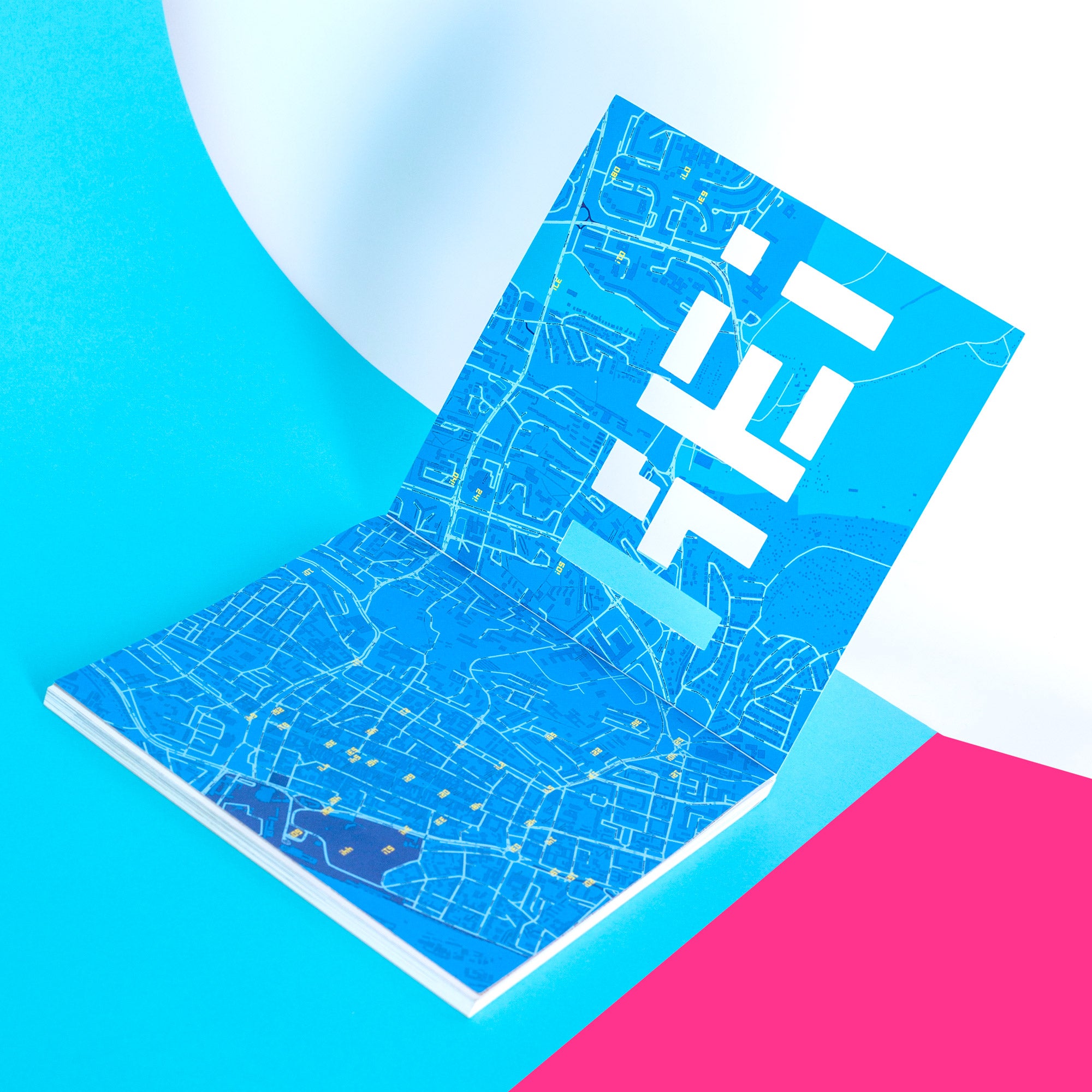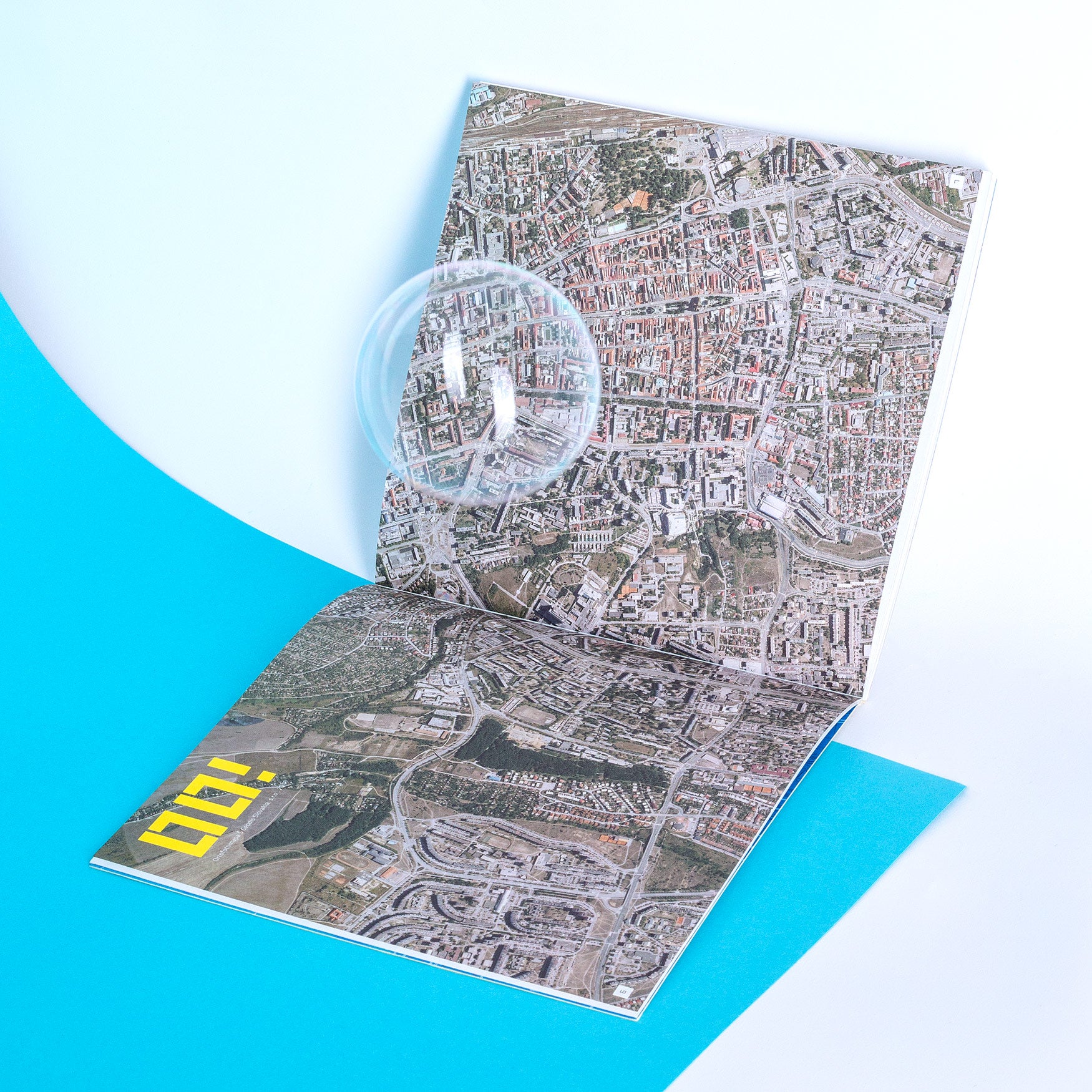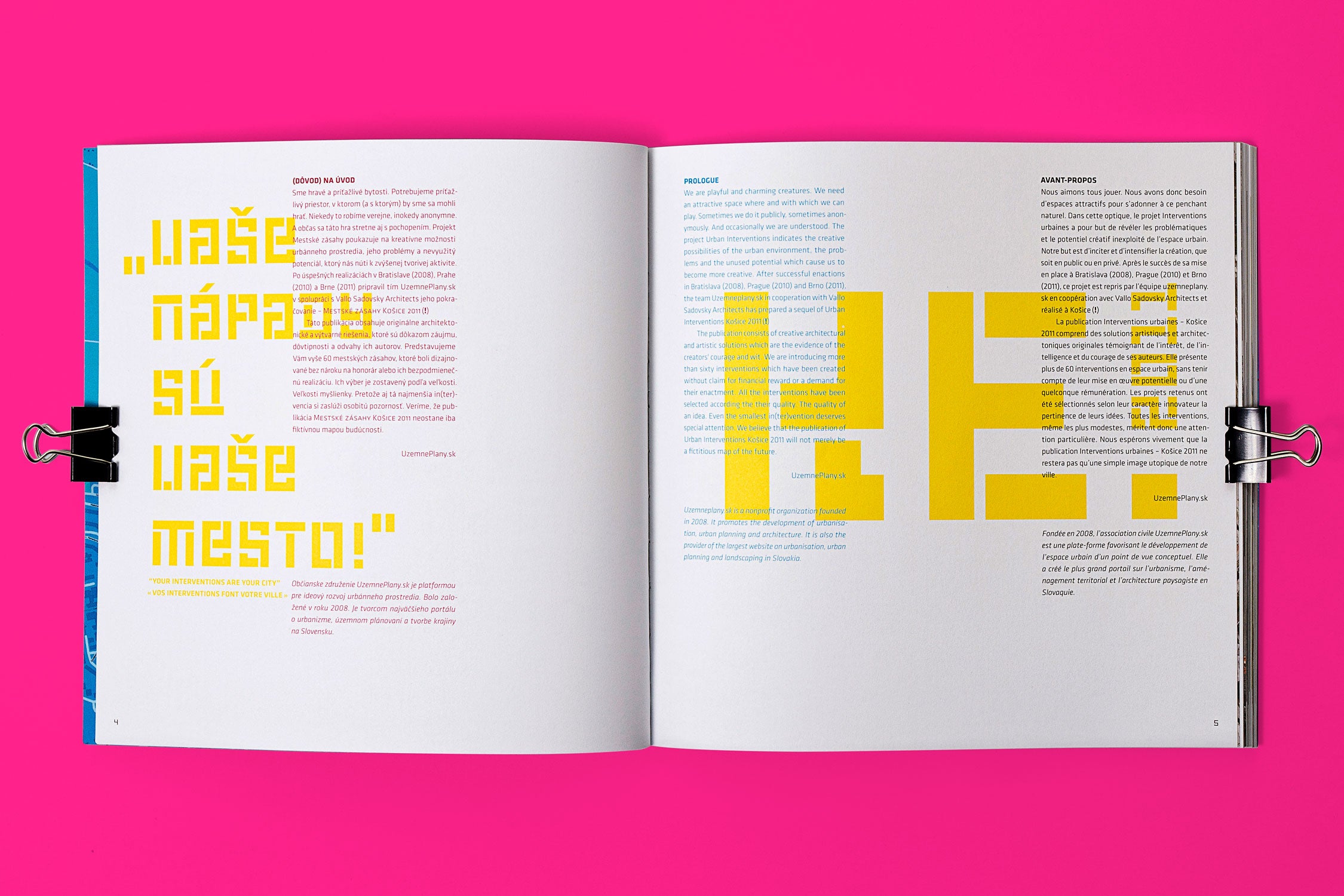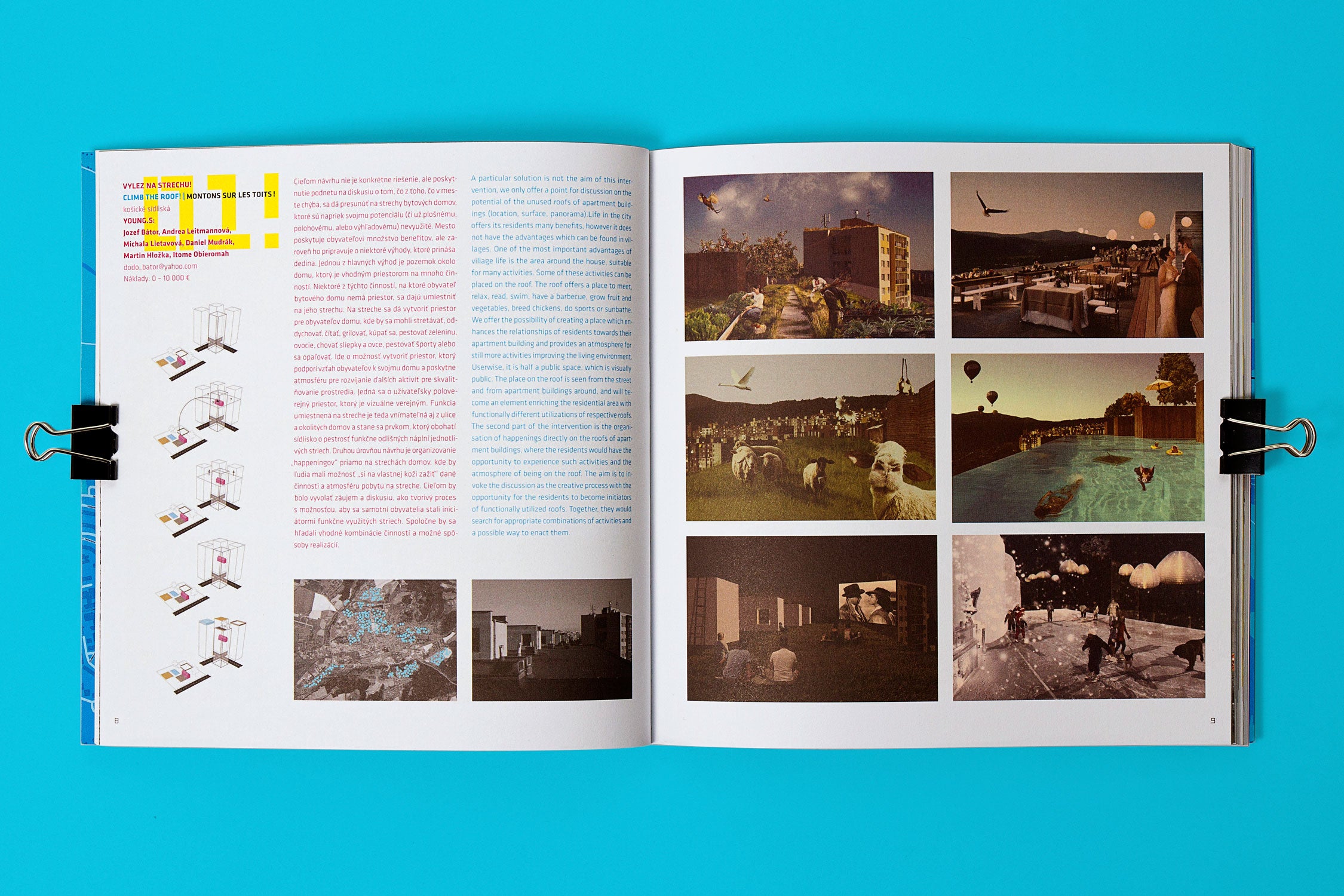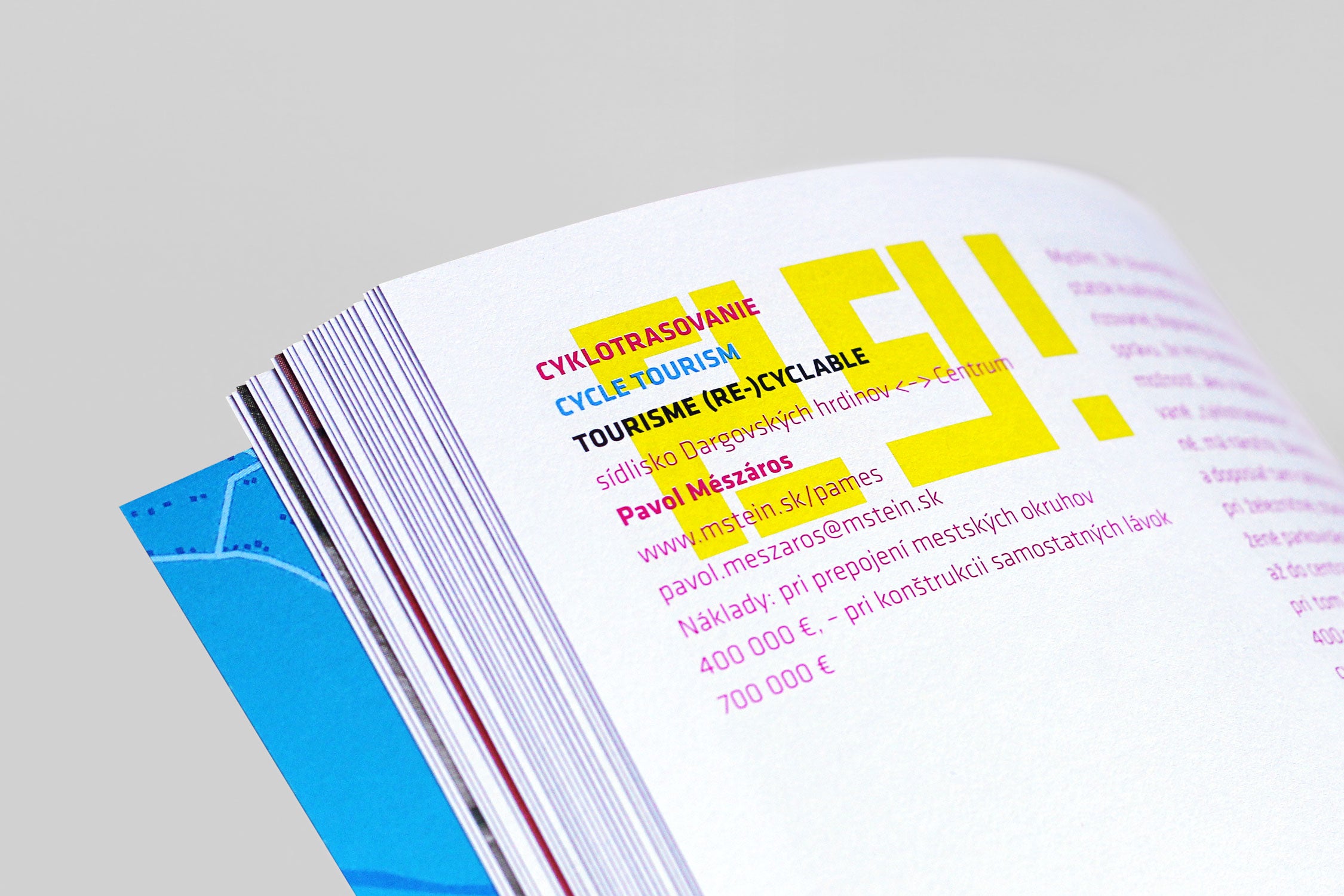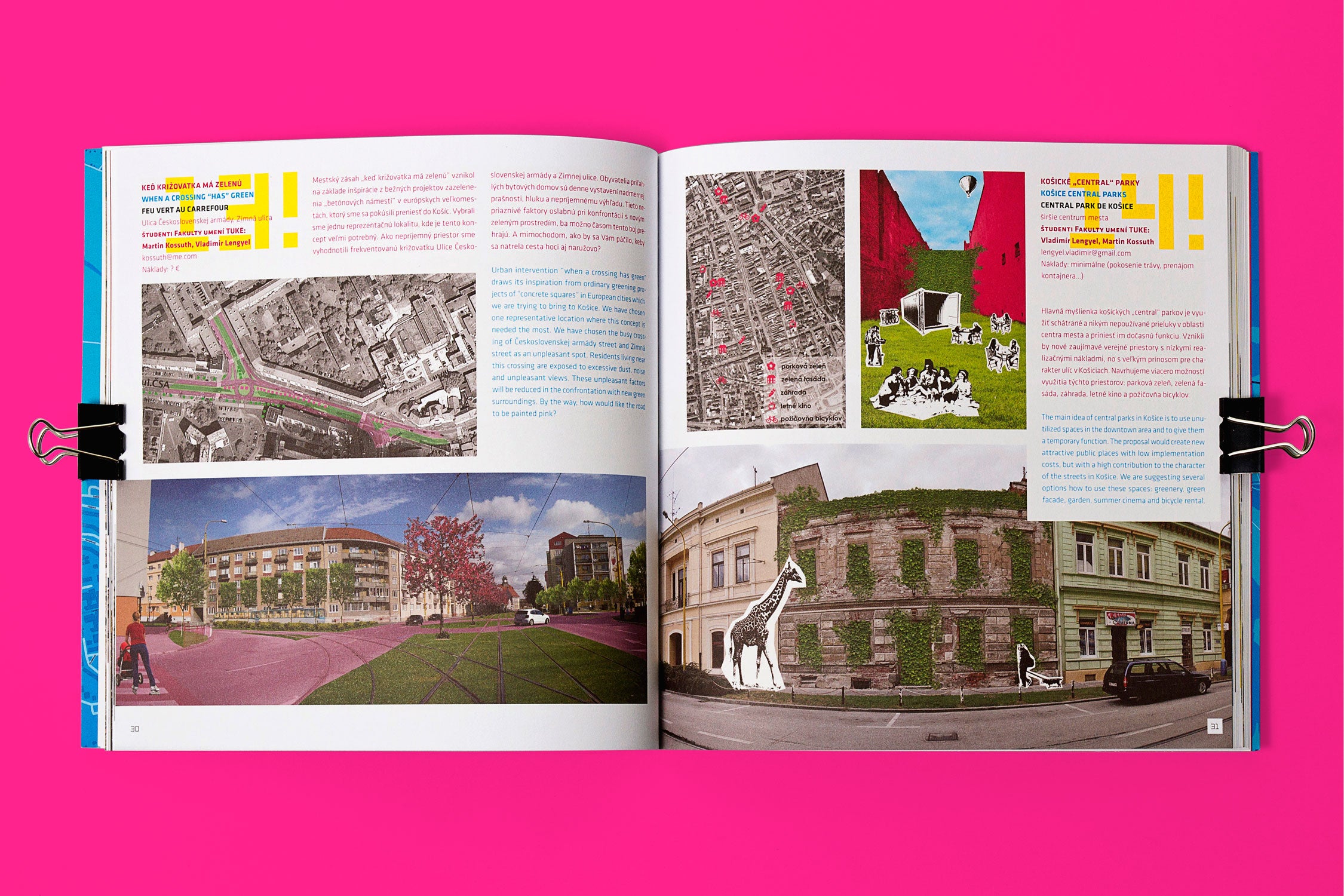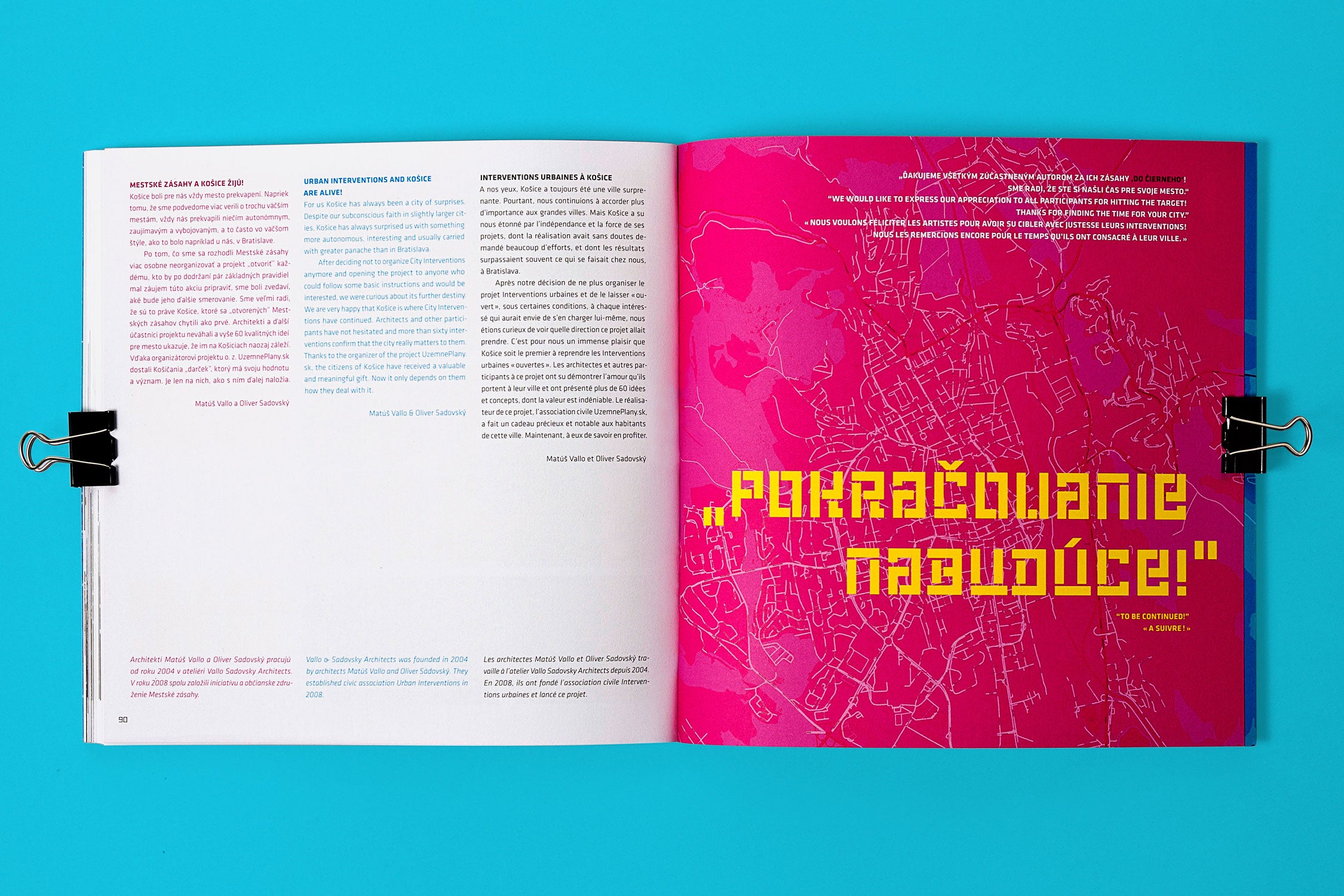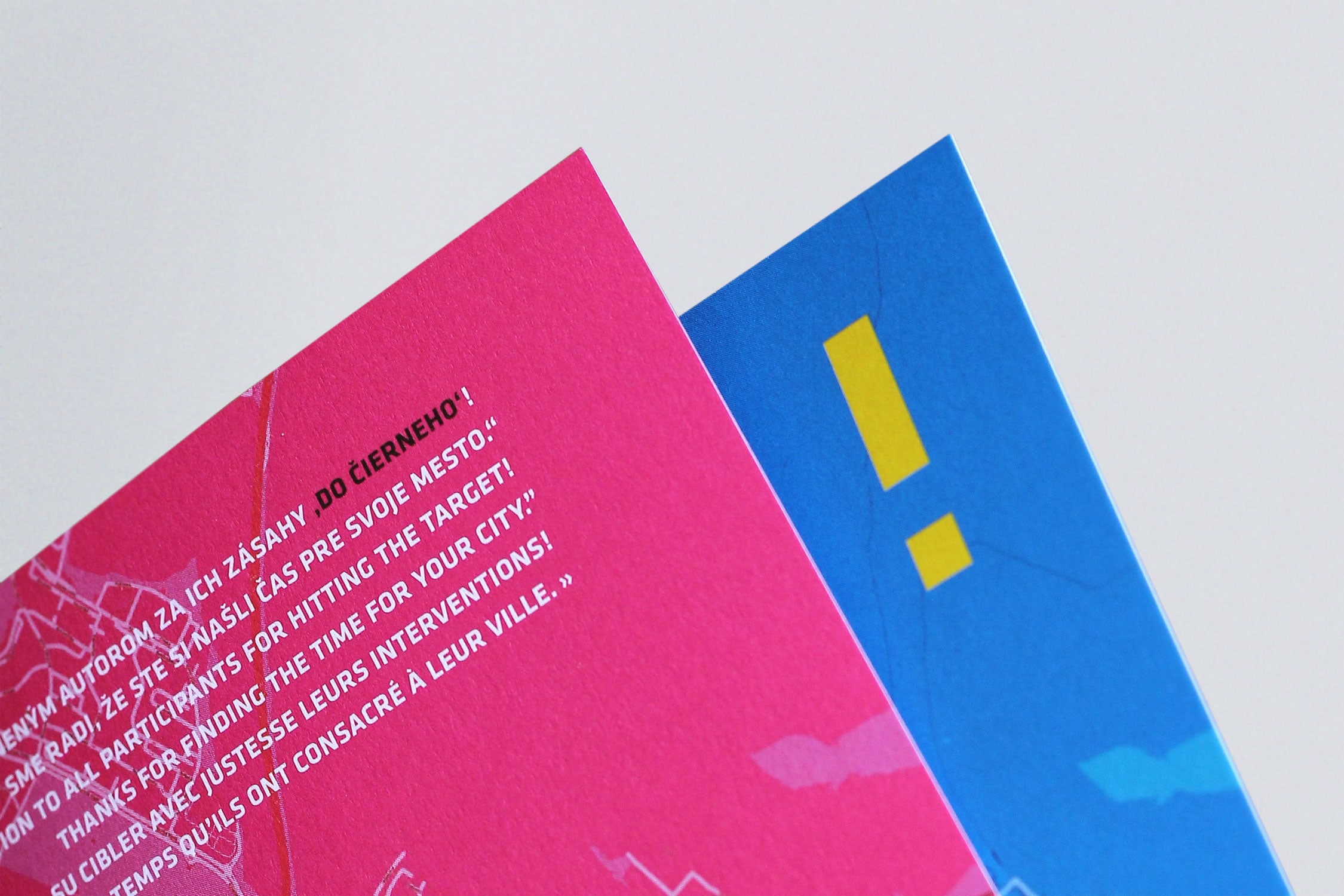
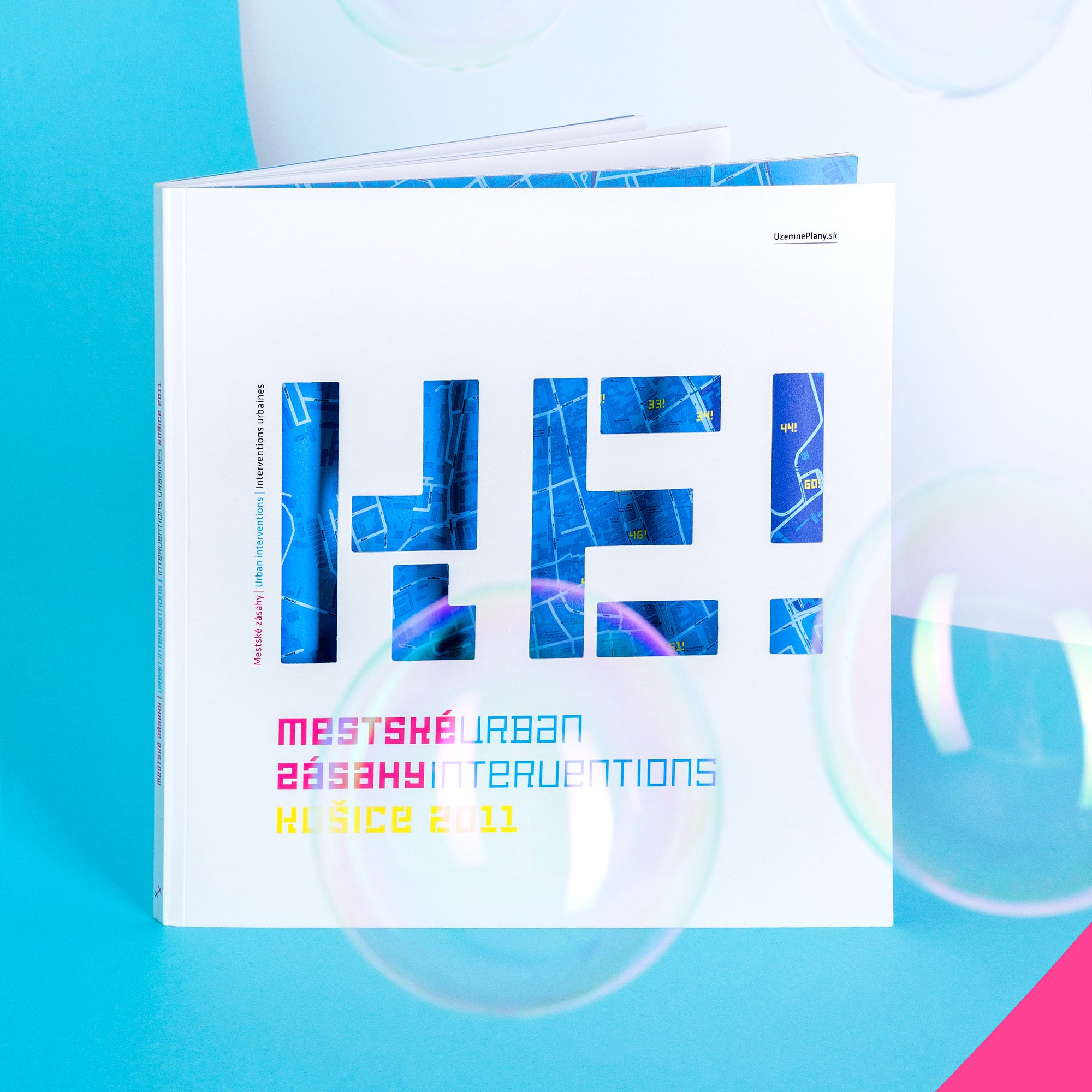
Mestské zásahy / Urban Interventions is a format that generates and gathers architectural solutions and new ideas in an effort to improve the quality of urban life. The main output is a publication offering a manual of creative solutions. The design of the publication is characterized by flexible layout and plenty of pictorial supplements. The neutral typography is complimented by a strong display typeface with local origin — LECO 1974. The cut-out acronym KE (Košice) on the cover is a symbolic intervention into the publication, the window it creates opens new points of view and is suggestive of what is hiding beneath the surface.